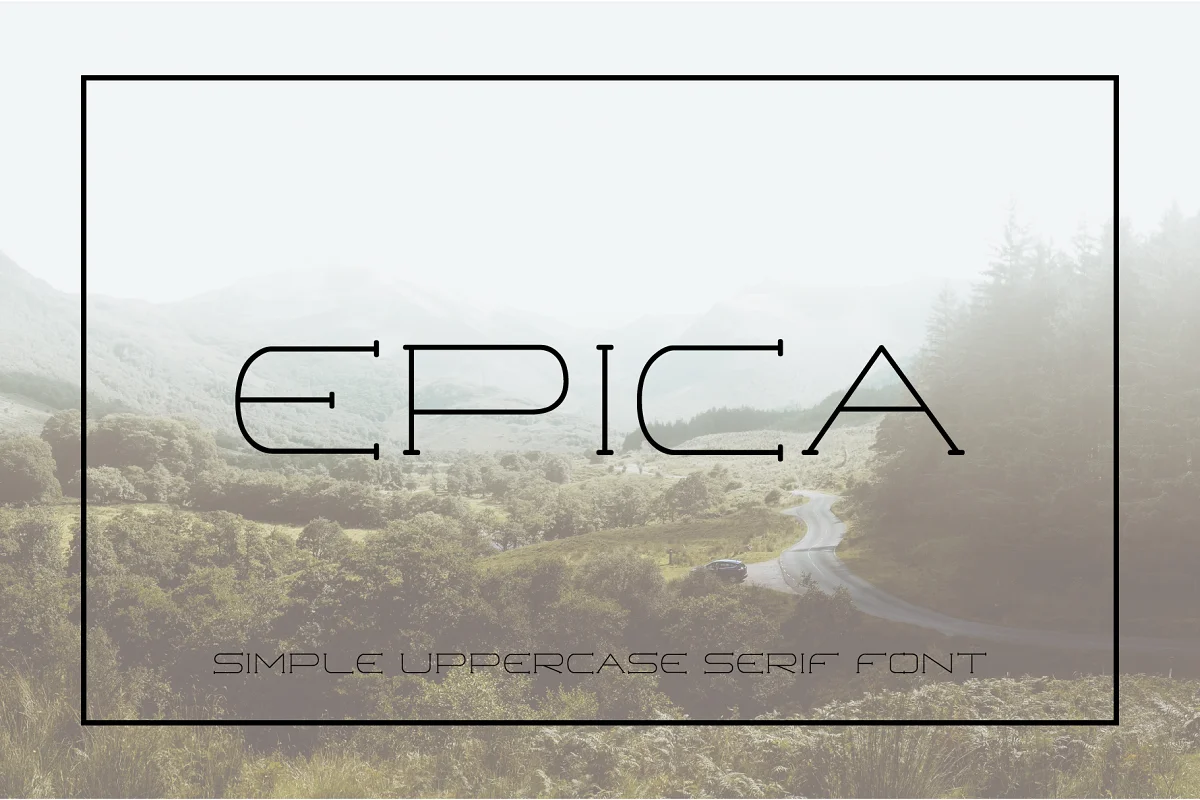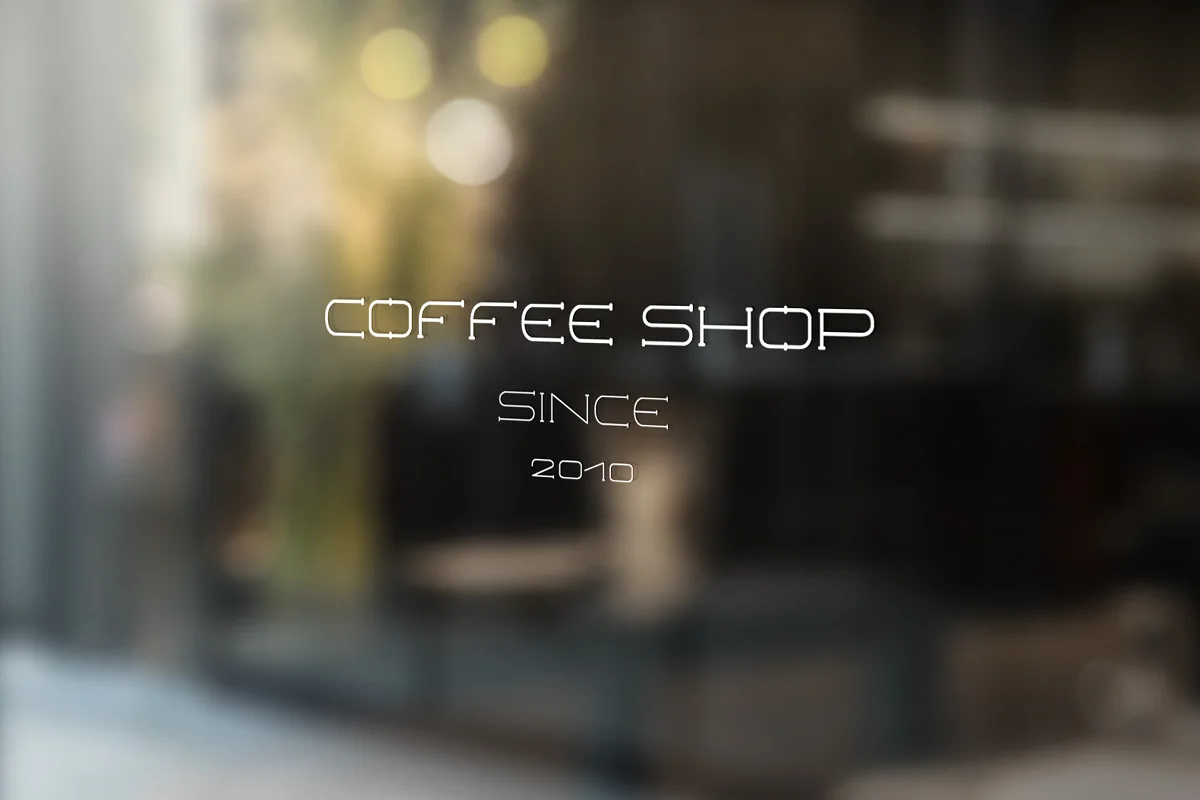
About the Epica Uppercase Serif Font
I’m pleased to introduce my first ever font Epica. Epica is a simple and clean monoline serif font with a strong and powerful character.
Epica is perfect for shop signage, packaging design, photo overlays, business cards, and many more.